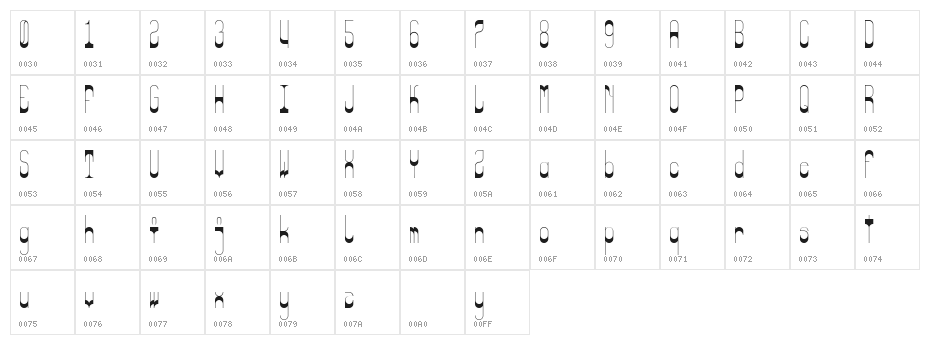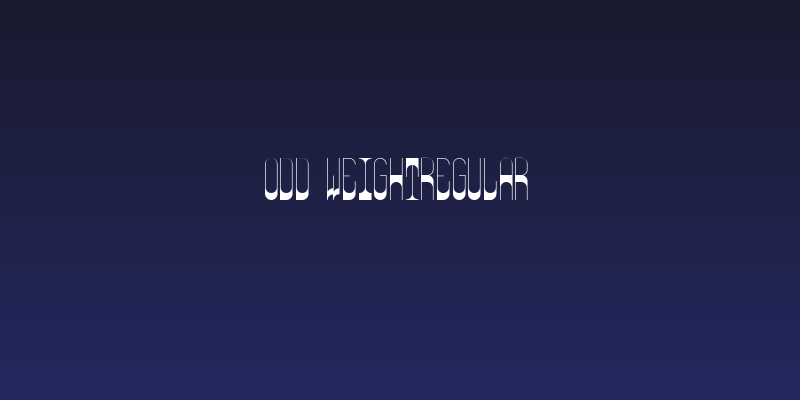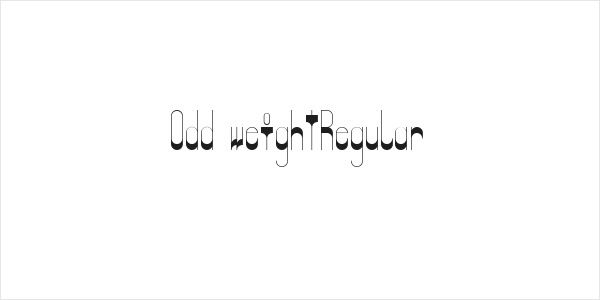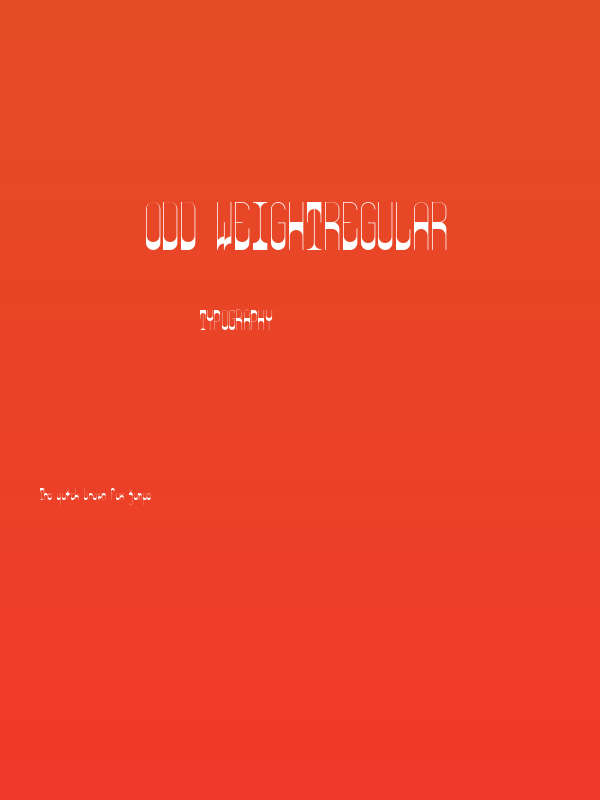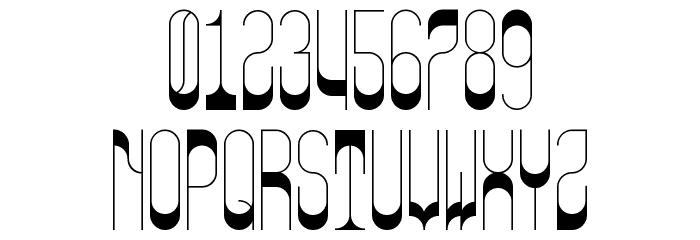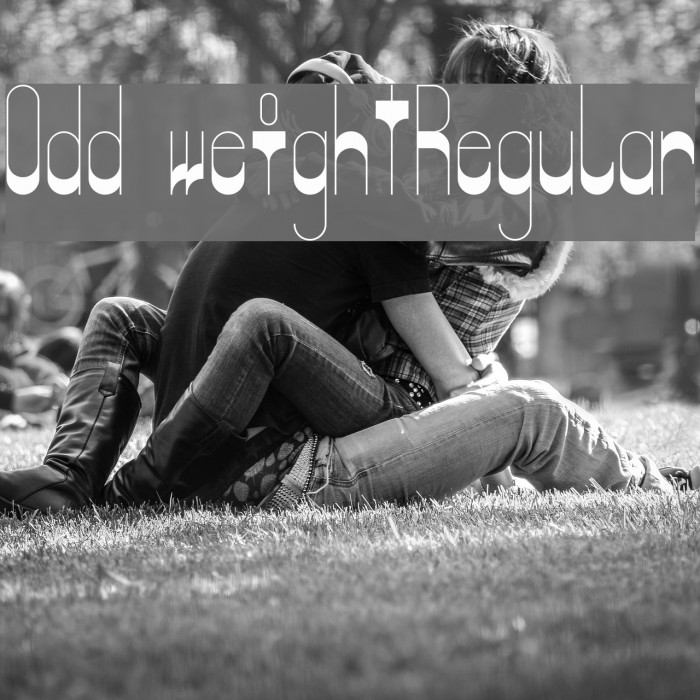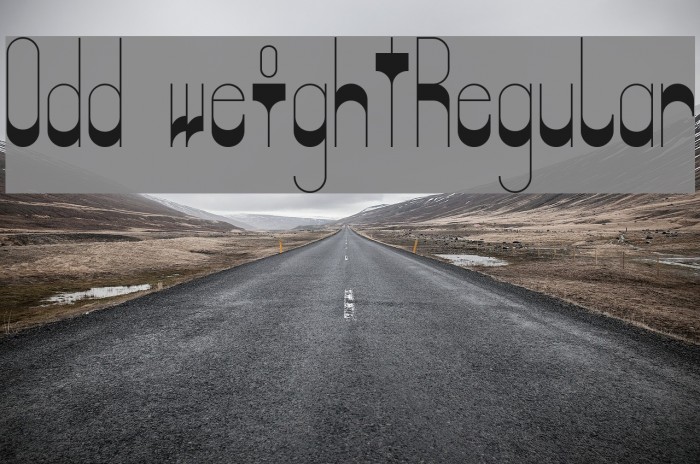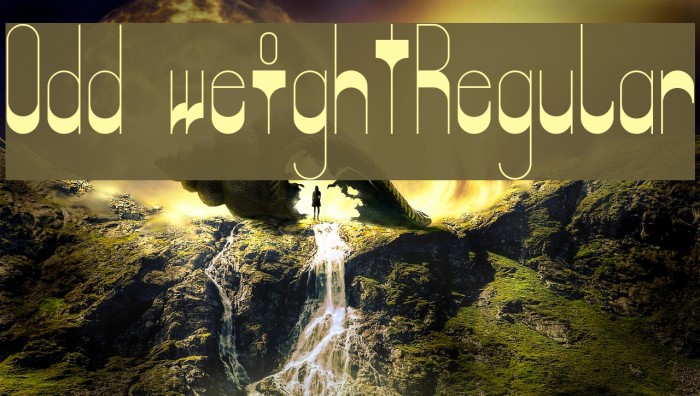
Odd weightRegular Font
Odd weightRegular Description
This font exhibits a unique and modern design characterized by its high contrast between thick and thin strokes. The uppercase letters are tall and narrow, with a distinct geometric flair that adds a futuristic touch. The lowercase letters maintain the same high contrast and geometric style, creating a cohesive look across the typeface. The numerals follow the same design principles, ensuring consistency. Special characters are also included, matching the overall aesthetic. This font's striking appearance makes it ideal for creative and bold design projects.